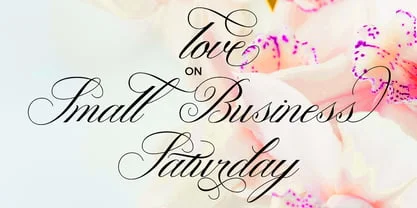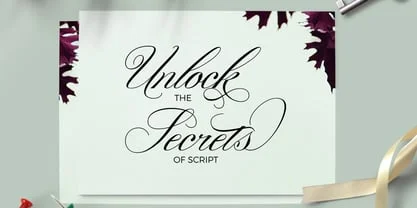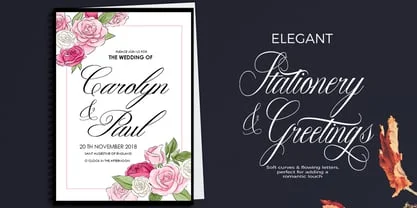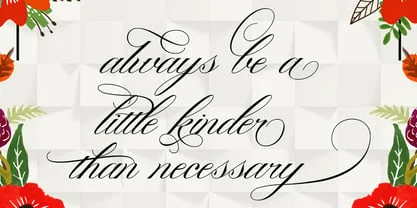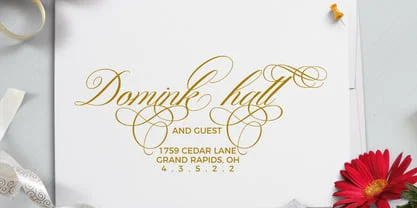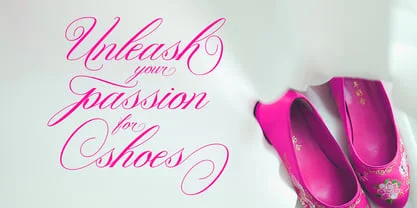
Gallisia Script Font
There is a particular satisfaction in finding a typeface that delivers consistent type colour across continuous text without compromise. Gallisia Script consistently provides it. The typeface brings an elegant, calligraphic sensibility to a broad range of creative disciplines, with distinctive character without sacrificing readability that holds up whether the work is print-first or screen-first.
In practice, Gallisia Script proves particularly effective for beauty packaging, signage systems, editorial layouts, high-end cosmetic packaging, environmental graphics. Designers reaching for it find that the type decisions feel resolved rather than laboured — a useful quality when client timelines are tight.
The range of applications extends to feminine branding, poster creation, event signage, wedding invitations. That breadth is deliberate: the proportions and spacing were stress-tested across a wide range of mock briefs before the typeface was finalised.
Gallisia Script sits comfortably alongside both classic and contemporary typefaces in multi-font hierarchies. It takes direction rather than competing for attention — a quality that experienced designers know is harder to find than it appears.
Graphic designers working on identity systems find Gallisia Script a reliable choice for projects that demand both personality and restraint. The design avoids the self-conscious quirkiness that dates quickly, settling instead for considered distinctiveness that holds up over time.